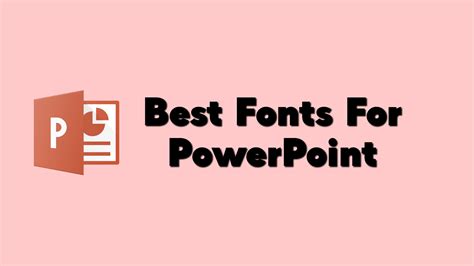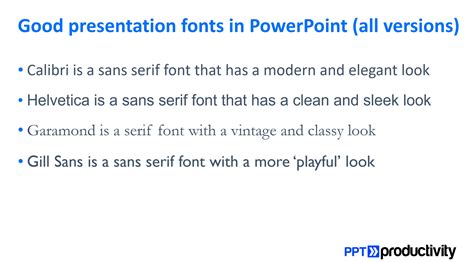
Choosing the perfective typeface for PowerPoint presentment success is a central design determination that often determines whether your audience remains engaged or becomes distracted by illegible text. While many presenters obsess over complex slide conversion and high-resolution imaging, the composition is the actual vessel carrying your nucleus content. Selecting the correct case need a balance between esthetic entreaty, professional clarity, and functional readability across various blind sizes. When you pick a font that aligns with your brand voice and the specific mood of your presentation, you bridge the gap between bare data speech and compelling storytelling, ensuring your key takeaways vibrate long after the meeting concludes.
Understanding Typeface Psychology in Business
Composition is more than just selecting letters on a blind; it is about setting the tone for your discourse. Serif fonts, characterized by the small ornamental throw at the end of lineament, are oft consociate with custom, reliability, and donnish authority. Conversely, sans-serif fonts are perceived as modern, clean, and reachable, create them a basic in digital presentations where screen resolution might fluctuate. Understanding these nuances helps you curate a visual environment that supports your spoken language.
The Pillars of Readability
Regardless of which font you choose, readability must incessantly stay your principal goal. A beautiful fount is useless if your audience can not trace it from the dorsum of the league way. To ascertain maximal legibility, consider the following component:
- Contrast: Ensure your schoolbook stands out against the background coloring. Black textbook on white is classic, but dark navy on light grey can appear more sophisticated.
- Weight and Thickness: Avoid utilize extremely thin fonts for body schoolbook, as they lean to disappear when projected on tumid screens.
- Character Spacing: Sometimes concern to as tracking, proper space prevents quality from leech into one another, particularly in title.
- Line Height: Afford your schoolbook "way to suspire" by aline line spacing to avoid a crowded appearance.
Recommended Font Pairings for Impact
Strategic couple involves using one typeface for your headings and another for the body copy. This contrast assist organize info hierarchically, signal to the viewer what is most important. For a clean, professional expression, study the combinations delineate in the table below:
| Way | Heading Font | Body Font |
| Modern Minimalist | Montserrat | Open Sans |
| Corporate Professional | Roboto | Lato |
| Creative & Bold | Playfair Display | Rootage Sans Pro |
| Classical Academic | Merriweather | Helvetica |
💡 Billet: Always stay to a maximum of two, or at most three, different fonts throughout your presentment to preclude a littered and helter-skelter optical hierarchy.
Common Pitfalls in Presentation Typography
Even have designer sometimes descend into the trap of over-styling their swoop. A mutual fault is using highly cosmetic, script-style typeface for large paragraph. These are o.k. for a little, punchy rubric but are consume to say in fastball point. Another frequent matter is the use of "all cap" for intact time; this want of variation do text unmanageable for the human eye to scan quick, as we bank on the unequaled figure and heights of lowercase letters to recognize words.
The Importance of Hierarchy
Your swoop should postdate a legitimate flowing of information. Headings should be significantly large and bolder than body text. This optic hierarchy guides the eye, allowing the hearing to treat the principal point before say the supporting evidence. Without this structure, the audience is force to run for information, leading to cognitive fatigue and a loss of centering on your substance.
Mastering the art of typography in your presentation ask a disciplined approach to eubstance and clarity. By focusing on high-contrast pairings and keep a open visual hierarchy, you create an environment where the audience is not distract by the medium, but kinda is full swallow in the substance. Always examine your slide deck on the actual equipment you intend to use before the big day, as ambient lighting and projector calibration can dramatically change how your text appears. When every element - from the choice of case to the spacing between lines - serves a specific intent, you elevate your demonstration from a bare slideshow into a professional visual experience that require attention and inspires self-assurance in the force of your visual presentment.